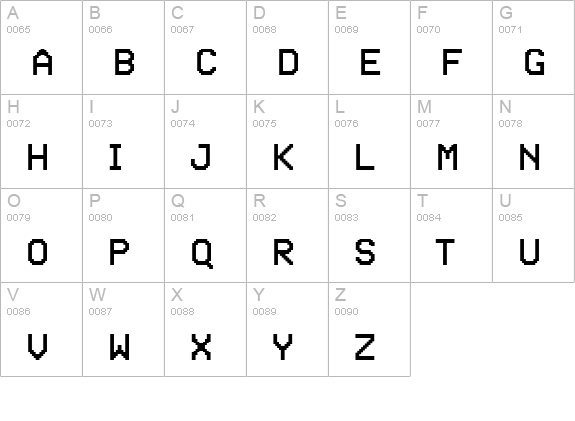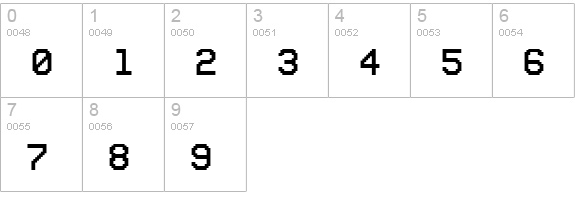
PFVideotextPro-Regular Font Details
PFVideotextPro-Regular is the standard, neutral variant in the PFVideotextPro typeface family \xE2\x80\x94 well suited to general body text, paragraphs, and standard typographic work.
PFVideotextPro-Regular is a versatile and modern font that combines the aesthetics of classic video game text with a contemporary twist. Its clean lines and geometric shapes give it a futuristic feel, making it perfect for a wide range of design projects. Whether you're creating a retro-inspired poster or a sleek user interface, this font is sure to make a bold statement. What's even better is that PFVideotextPro-Regular is available for free download at FontsMarket.com. This means you can easily access this high-quality font without any cost, making it a valuable addition to your font collection. Don't miss out on the opportunity to enhance your designs with the unique style of PFVideotextPro-Regular - download it today and let your creativity take flight!